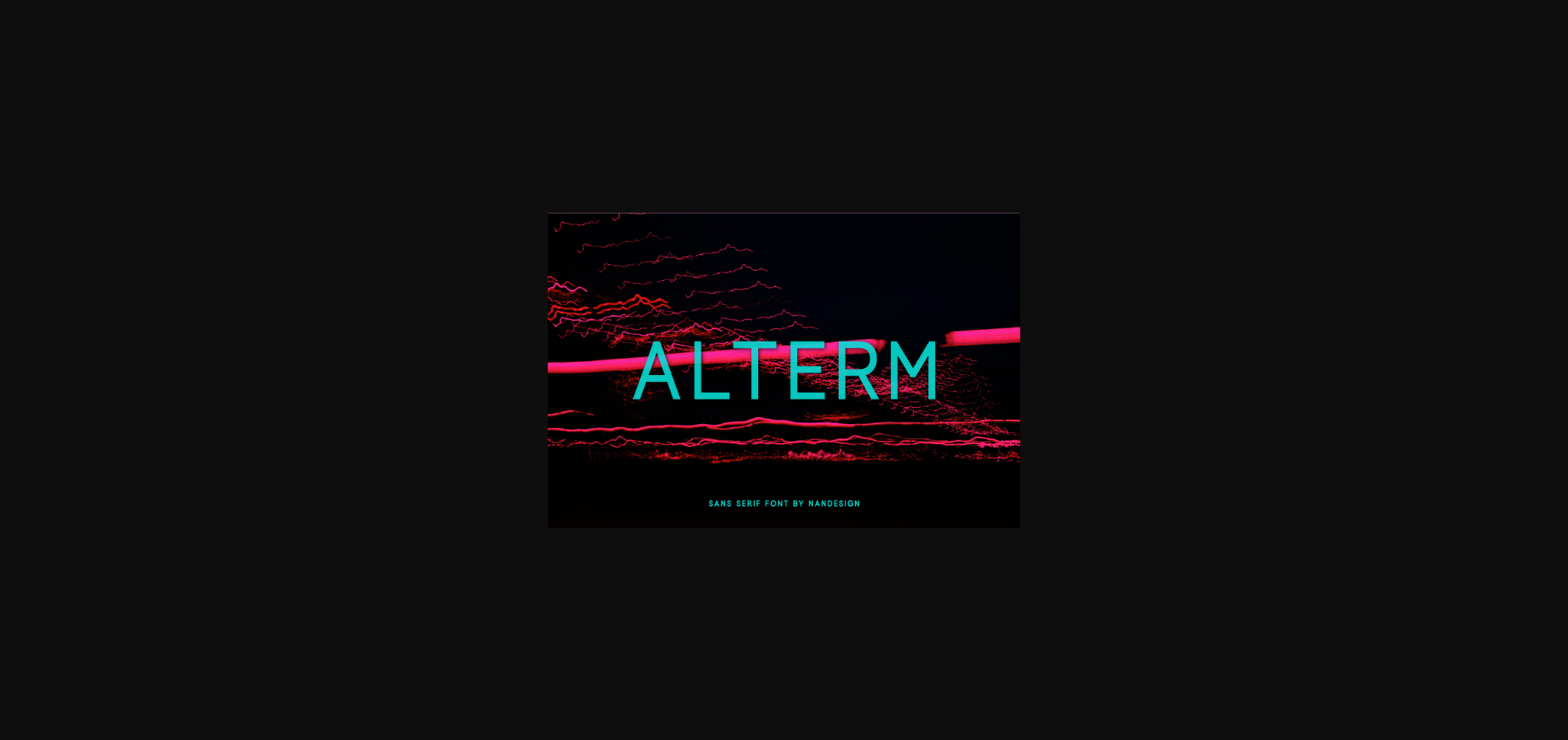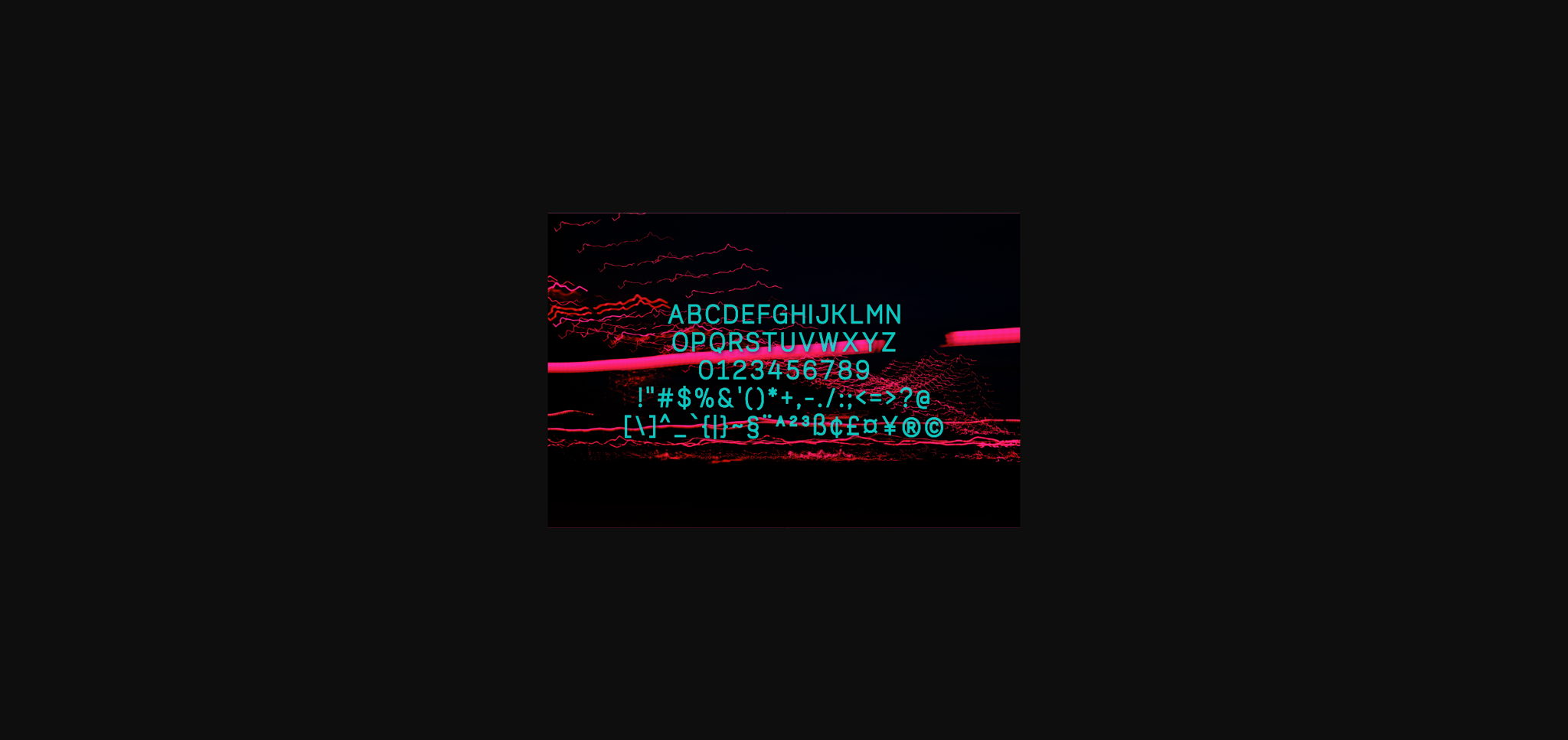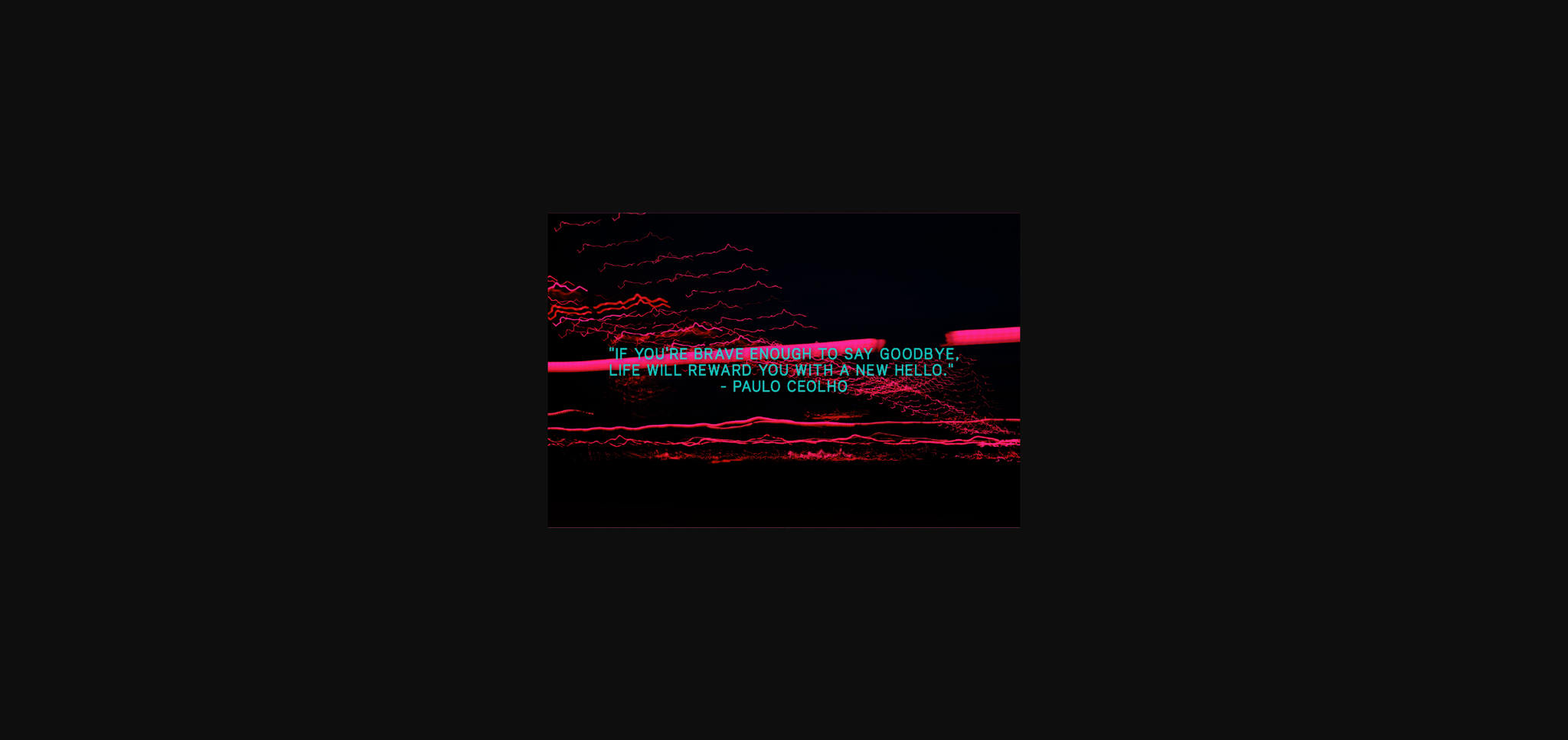
Alterm Font
About Alterm Font
Alterm is a great sans serif font, designed to complement every project you’re currently developing. It has a fresh, thin and neat vibe and it will be a hit for any design that you want to add it to.